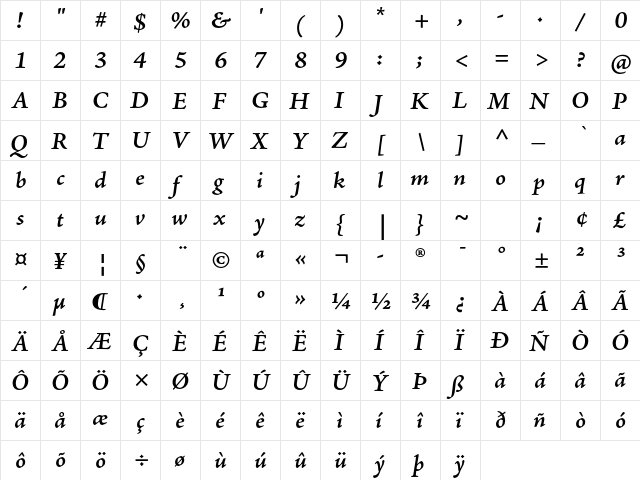
Adobe Jenson Pro Semibold Italic Caption
| Designer | Robert Slimbach |
Design Context for Adobe Jenson Pro Typeface
Adobe Jenson Pro takes a measured approach to typography — its balanced proportions and neutral character make it a reliable workhorse for both digital and print work. The dynamic lean of this cut emphasises speed and emphasis in any layout. Its bold stroke weight gives it real presence on the page.